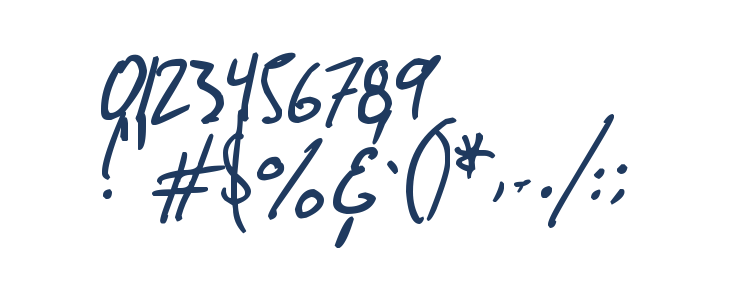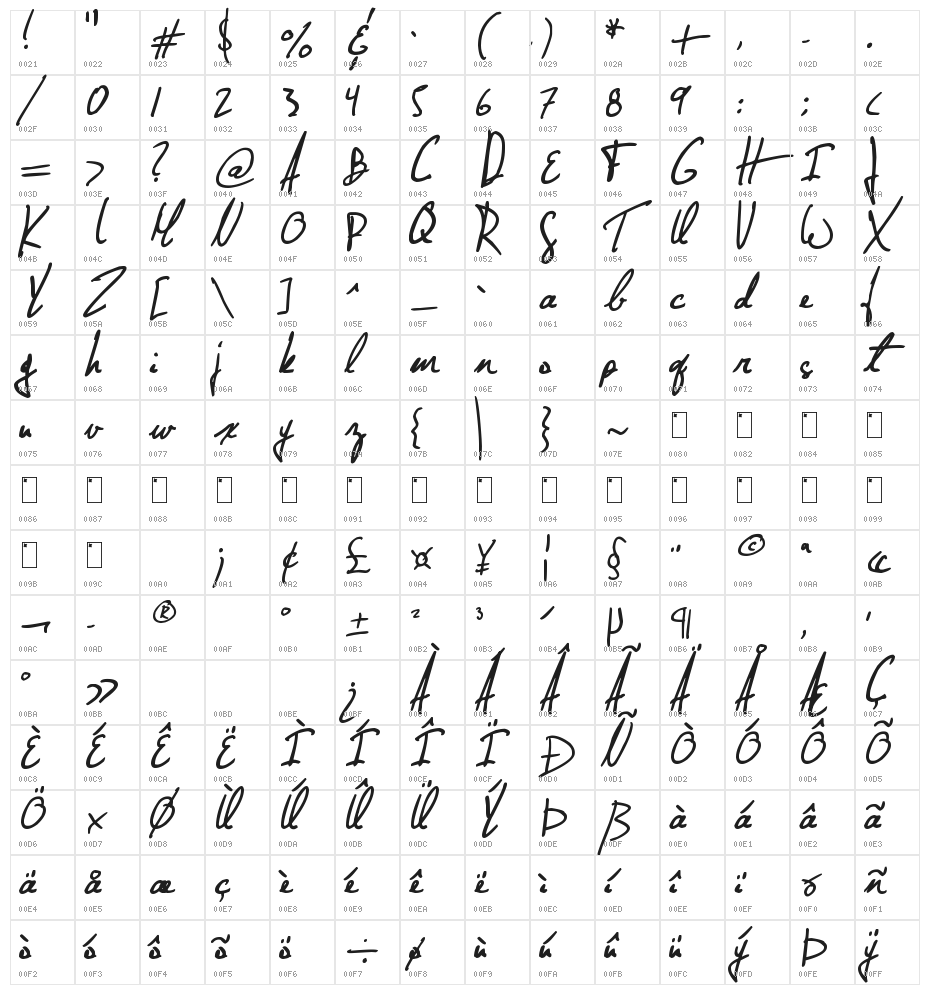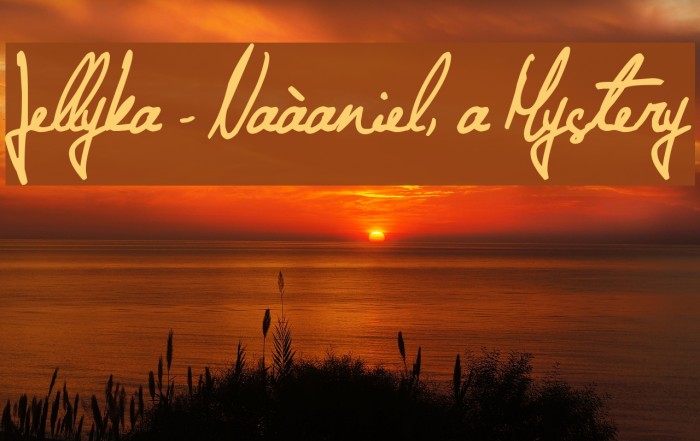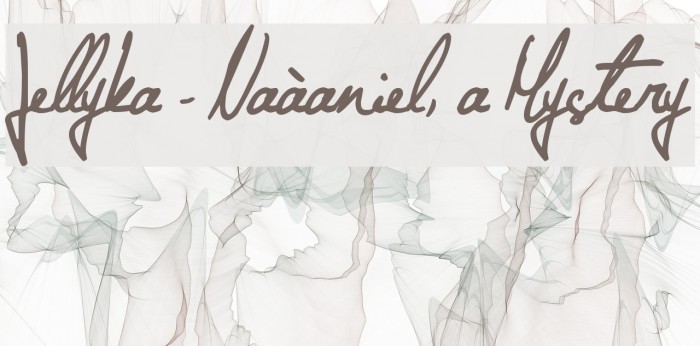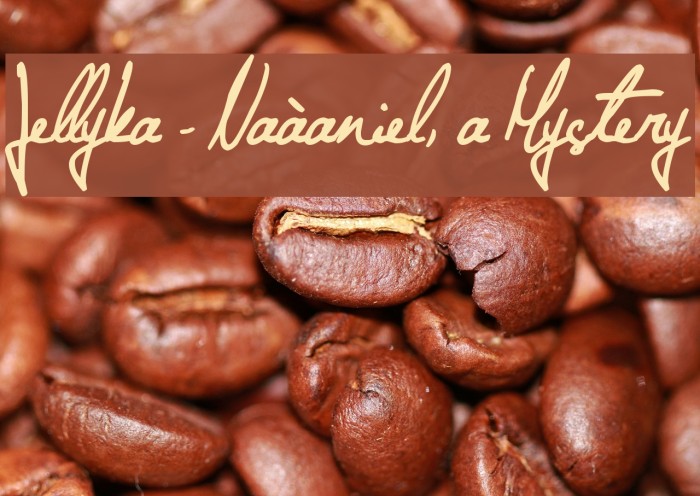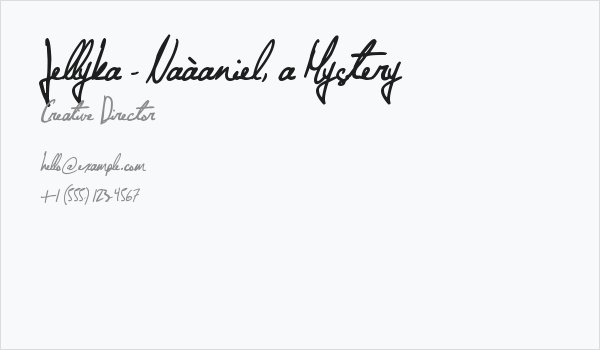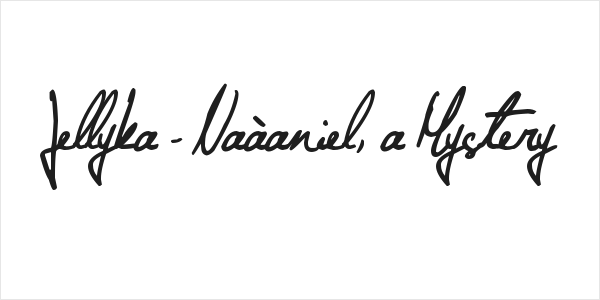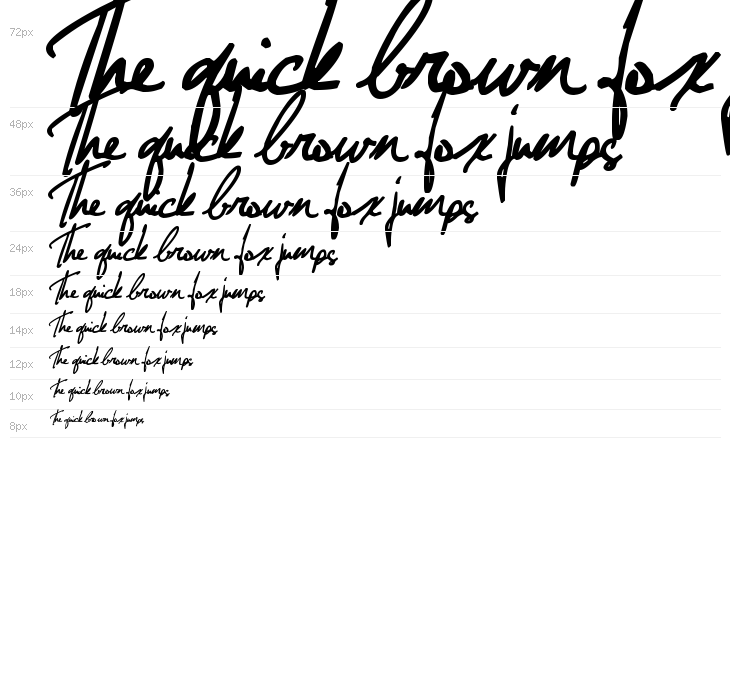
Jellyka - Naàaniel, a Mystery Font
Jellyka - Naàaniel, a Mystery Description
This font features a dynamic and fluid handwritten style, characterized by its elegant and flowing script. The letters are connected with smooth, sweeping strokes, giving it a personal and artistic touch. The uppercase letters are bold and expressive, while the lowercase letters maintain a consistent flow, enhancing readability despite the cursive nature. Numbers and special characters are crafted with the same attention to detail, ensuring a cohesive look across all elements. The overall appearance is both sophisticated and approachable, making it suitable for various creative applications.
| Proposed Projects | Ideal for wedding invitations, personal branding, artistic projects, and greeting cards. |